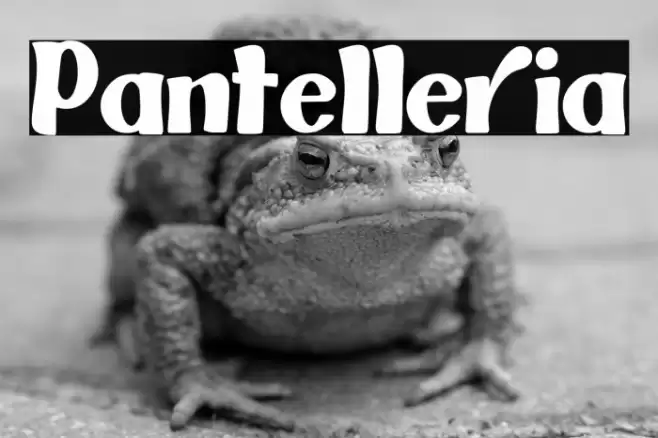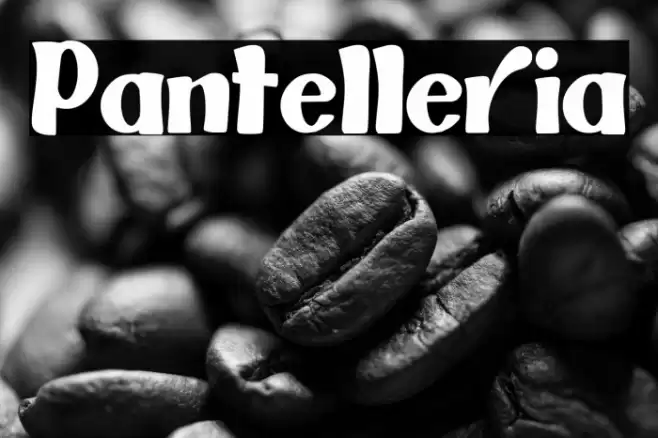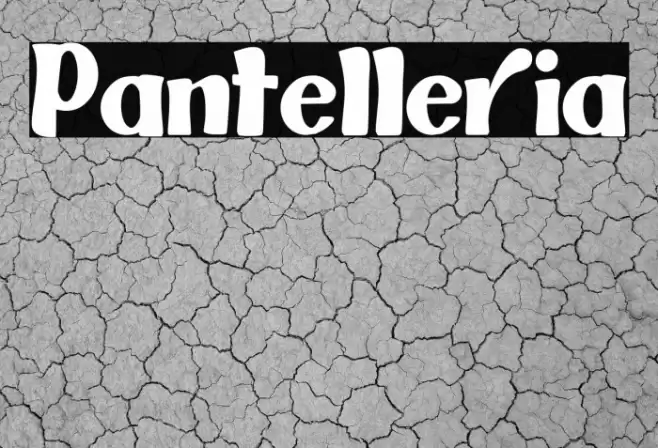
Pantelleria Font
Pantelleria Description
This font features a bold and playful style, characterized by its thick, rounded strokes and slightly irregular shapes. The letters have a whimsical, hand-drawn appearance, with varying widths that add a dynamic and energetic feel. The uppercase letters are particularly bold, while the lowercase letters maintain the same playful essence with slightly more subtle curves. The numbers and special characters follow the same design principles, ensuring consistency across the entire typeface. This font's unique style makes it stand out, perfect for projects that require a touch of creativity and fun.
A bold, playful font with thick, rounded strokes and a hand-drawn appearance from Regular fonts.
- Proposed Projects: Ideal for children's books, playful branding, posters, and creative invitations.
- Overall Style: Playful, Whimsical